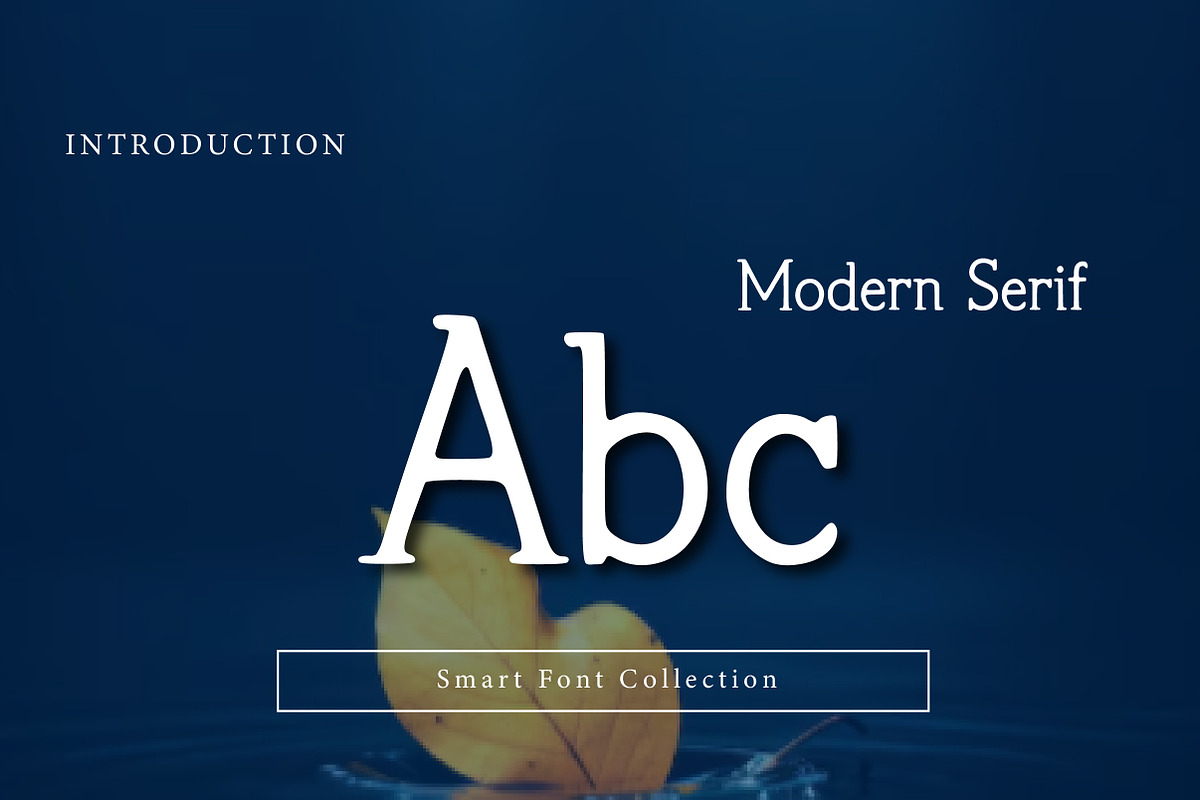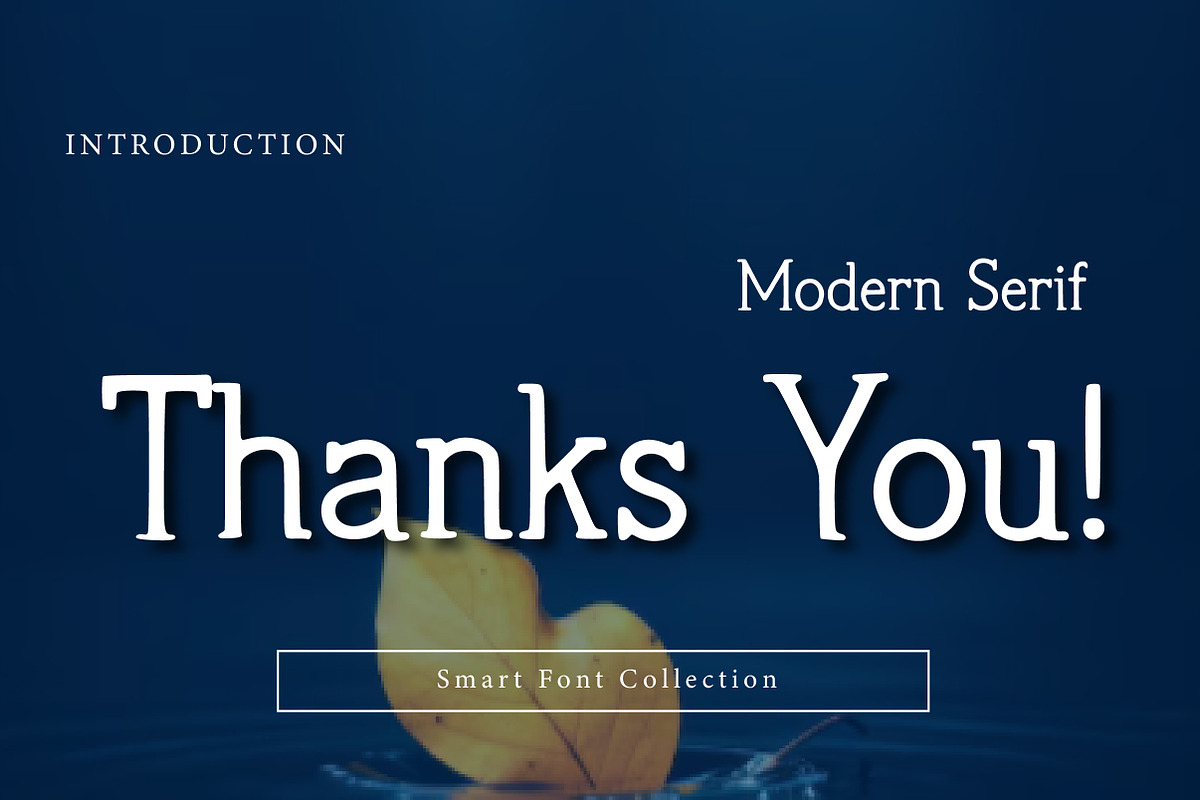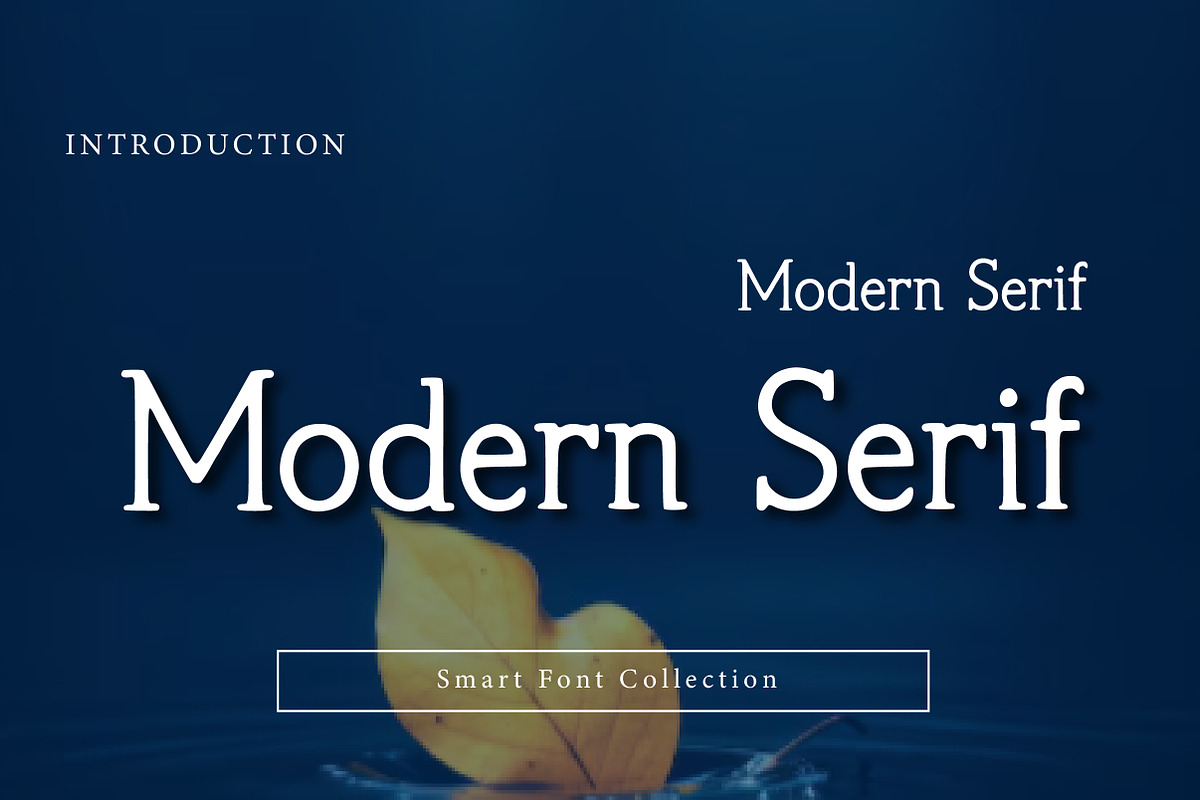
Modern Serif
Modern Serif is a stylish and contemporary serif typeface that blends classic serif structure with modern simplicity. Designed with clean strokes, balanced contrast, and refined details, this font delivers a professional and elegant appearance suitable for today’s design needs.
Ideal for branding, editorial layouts, magazines, logos, websites, and luxury packaging, Modern Serif offers versatility and readability across both print and digital platforms. Its modern character paired with timeless serif elements makes it perfect for designers seeking a clean, confident, and sophisticated typeface.
Whether used for headlines or brand identities, Modern Serif brings clarity, elegance, and a modern editorial feel to any project.